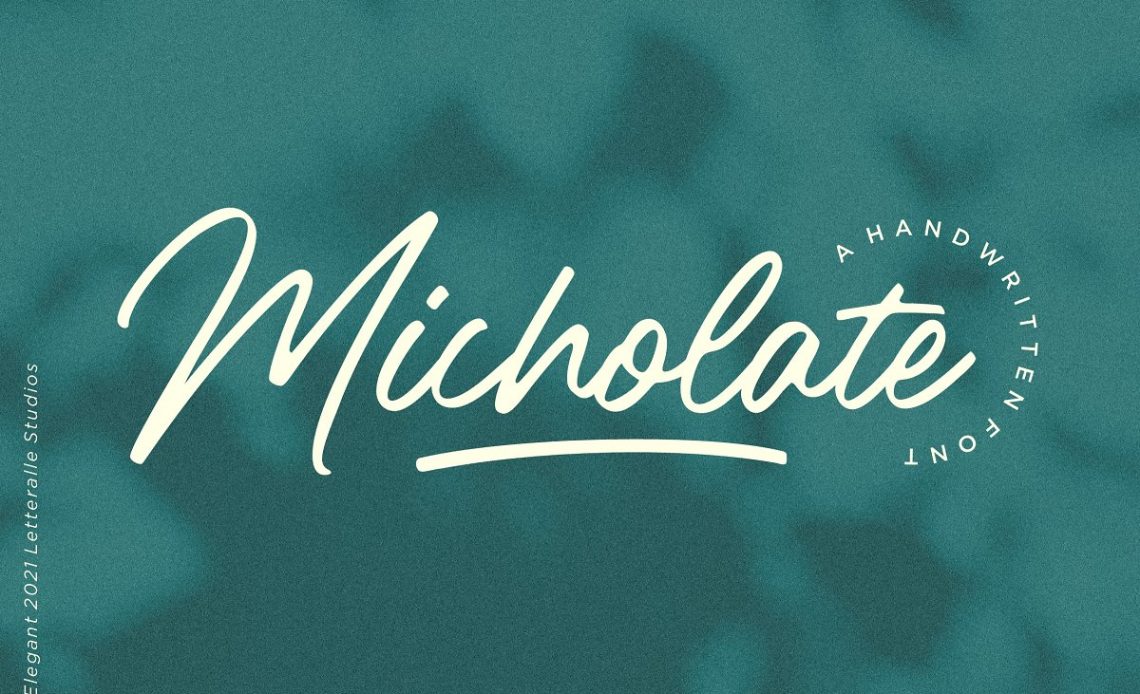
Are you searching for a unique and captivating script font for your projects? Look no further than Micholate Handwritten Font, created by the talented Annas Alam. This font is perfect for those looking to elevate their cursive signature style, while adding a touch of elegance and warmth to their designs.
Micholate is versatile and suitable for a wide range of projects, including logos, merchandise, quotes, social media posts, and advertising. Its handwritten style gives it a personal touch that is perfect for adding a touch of personality to any project.
But what really sets Micholate apart is its accents and ligatures. This font comes with access to swashes _1 to _4, which adds an extra level of customization to your designs.